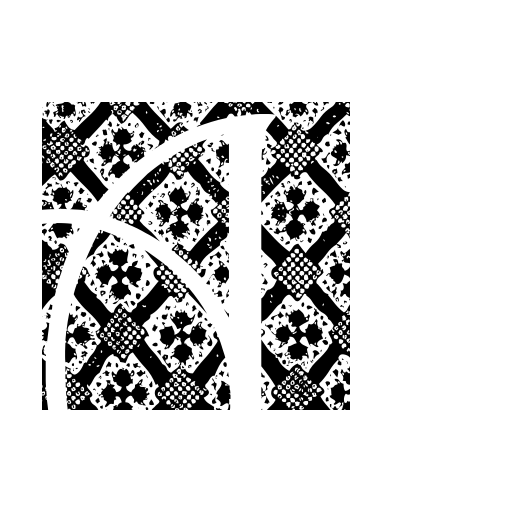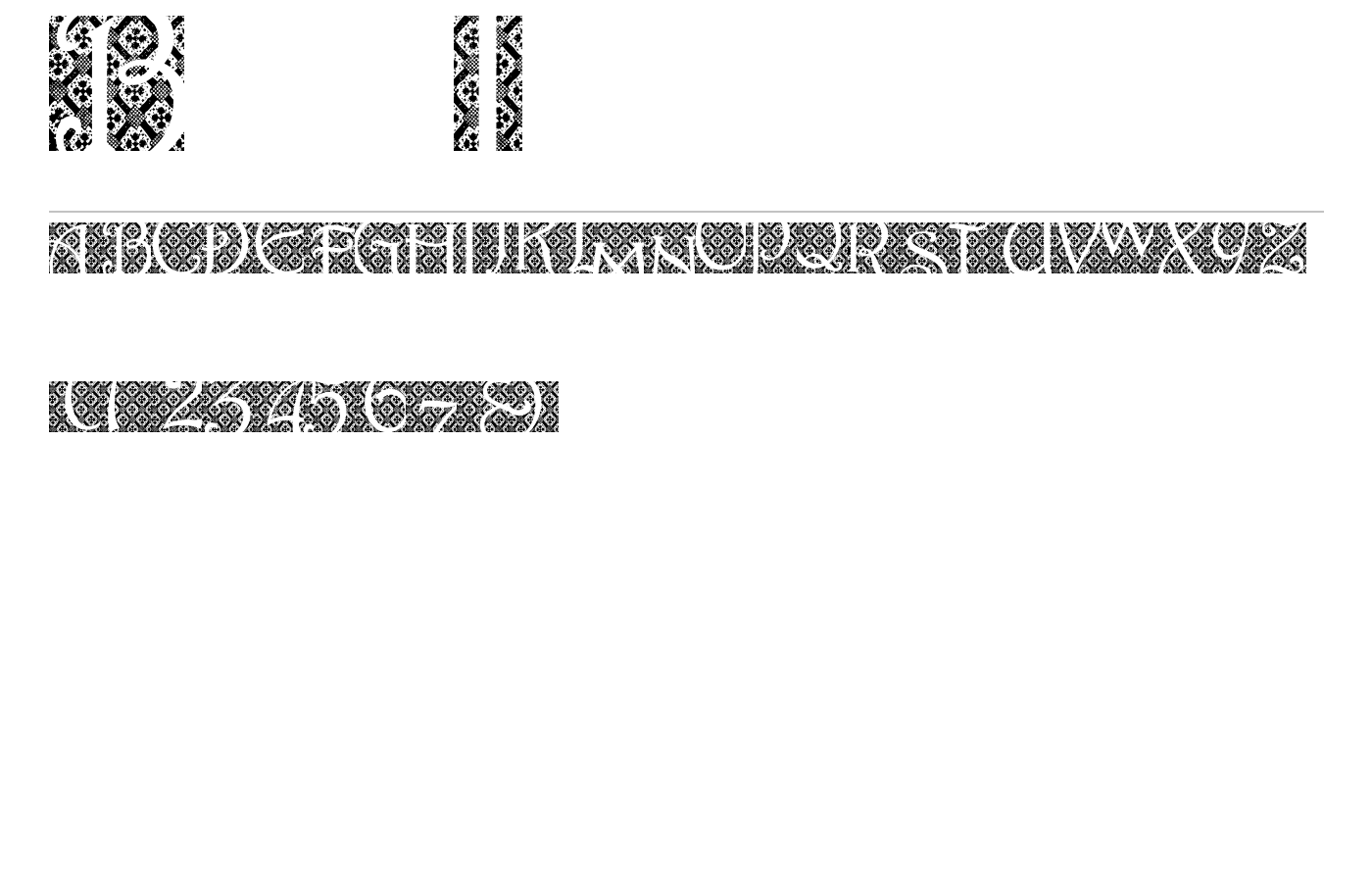
Batik Indo is a decorative display font featuring intricate batik-inspired patterns within its uppercase letters and numbers, giving it a rich cultural and artistic flair. Its blocky, serif-like letterforms are filled with detailed geometric motifs, making it ideal for striking headlines, logos, or designs that celebrate heritage and craftsmanship. This font works best in large sizes where its ornate texture can be appreciated, lending a unique and exotic feel to fashion, packaging, and cultural branding projects.
Batik Indo Font
About Batik Indo Font